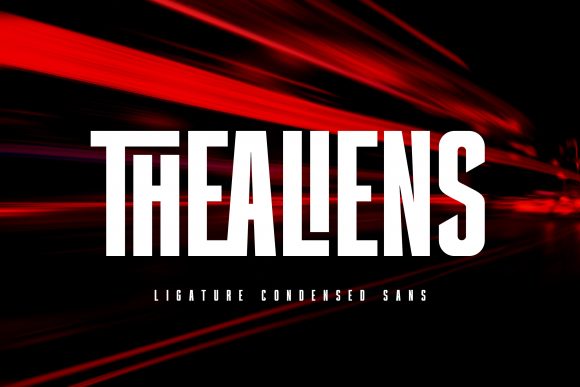
Introducing Thealiens Font, the interstellar typeface that will propel your designs to unexplored galaxies! This audacious sans serif font, crafted by the celestial hands of almarkhatype, embodies the essence of the boundless cosmos. With its bold and futuristic strokes, Thealiens Font is not just a font; it's a portal to a universe of endless possibilities.
Unleash your creativity and boldly conquer the design frontier. Thealiens Font is a cosmic chameleon, seamlessly adapting to a myriad of projects. Its versatility is as vast as the starlit sky, making it the perfect choice for everything from dazzling business cards that command attention to captivating website designs that transport users to uncharted realms.
As you weave your design magic with Thealiens Font, you'll witness the transformation of ordinary creations into extraordinary masterpieces. Its bold presence will ignite your imagination and empower you to craft designs that transcend the boundaries of the mundane.
Immerse yourself in the cosmic allure of Thealiens Font and let your creativity soar among the stars. Its futuristic charm will add an otherworldly touch to your creations, leaving an unforgettable mark on the hearts and minds of your audience.
Embrace Thealiens Font, the font that will launch your designs into the stratosphere of brilliance. With its bold strokes and boundless versatility, it's the ultimate tool for designers who dare to dream big and boldly explore the uncharted territories of creativity.